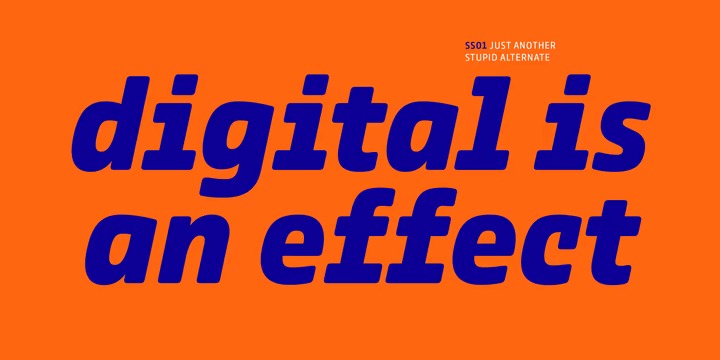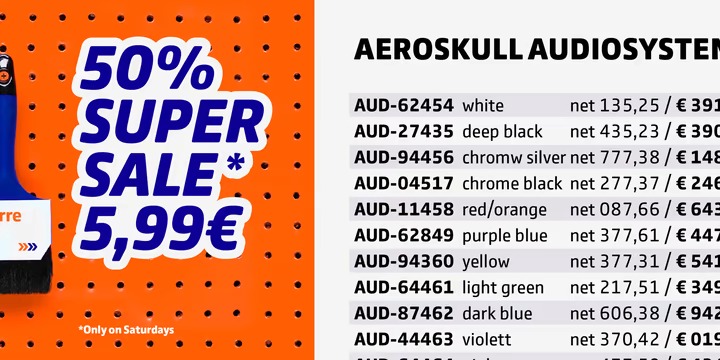
Comspot Font Family
Comspot Sans Serif Font is a very humanist and useful gentle sans serif full of charm and possibilities. Originally designed as a custom typeface Comspot’s nine weights — razor-thin hairline to ultra black — and 14 stylistic alternates fulfil every need, from extended to display text.
Comspot’s typewriter flavour is strongest in letters like f and t, with their wide middle strokes, and the tighter design of w, M and W, with their repositioned centre joints. Glyphs that would normally cause trouble in monospaced fonts have been carefully balanced for text, and have easily-accessed alternates to emphasise the font’s typewriter vibe and bring more character to display settings. Where the roman mixes in monospaced forms, the italic finds a balance between real italic and sloped roman shapes. The subtle rounding of Comspot’s corners increases from Hairline to Ultra, producing fine and elegant light styles and humane heavy weights.
Comspot supports the full Adobe Latin 3+ character set and thus some 90 languages. Along with using Stylistic Set 01 to unleash glyphs with an extra technical typewriter flavour, Comspot offers a lot of typographic features: tabular figures, fractions, superscript or even contextual alternates. Also set of individual DIY-Icons like a great big wood axe or a warning triangle can introduce a fun factor to your projects.